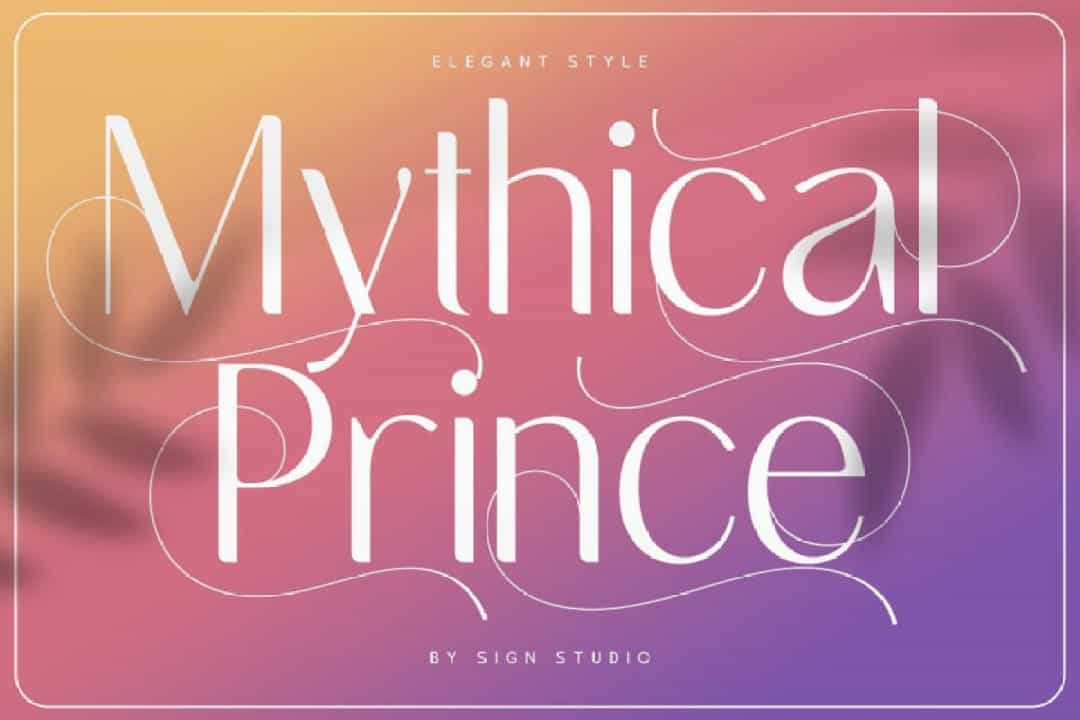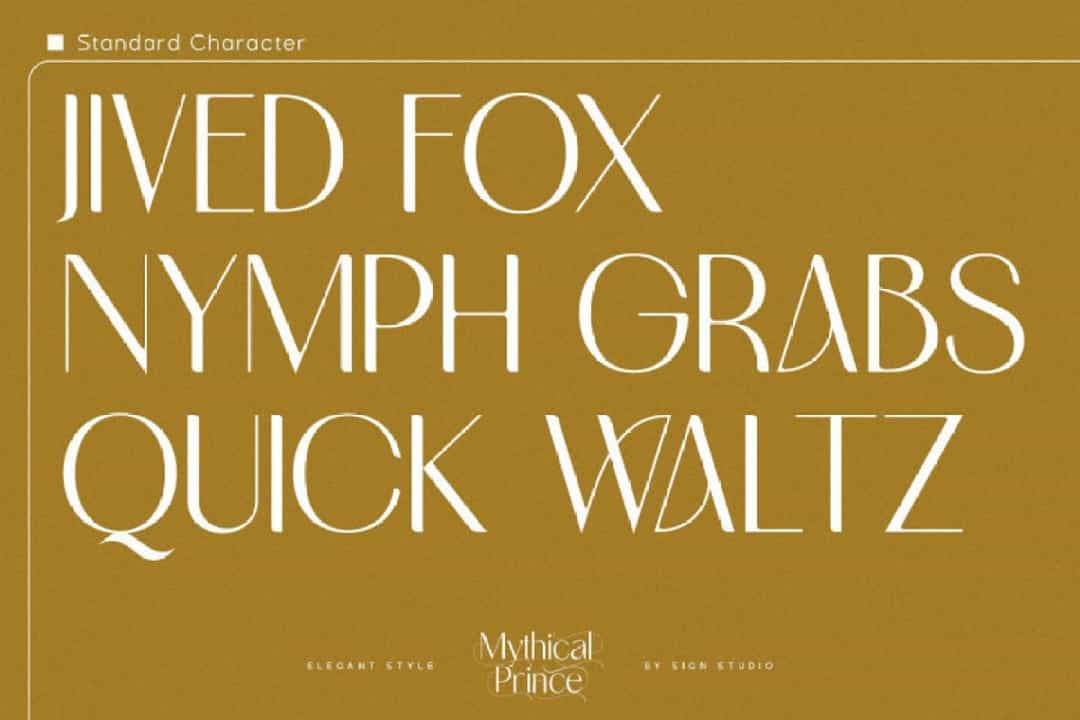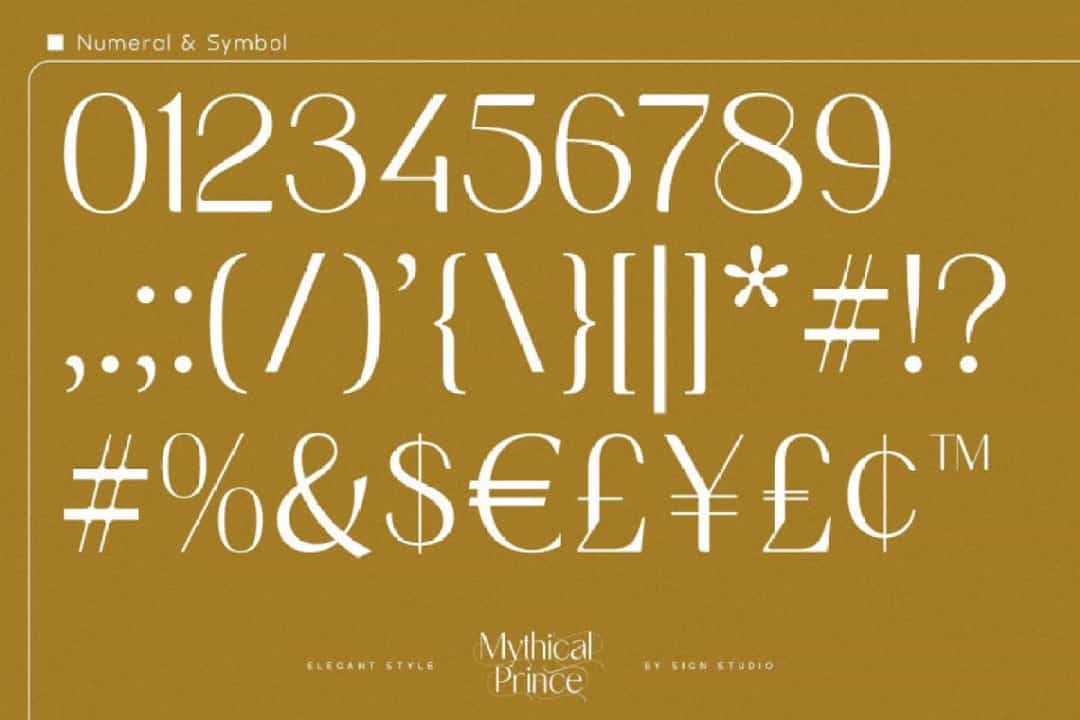
Mythical Prince is an elegant and soft sans serif font designed in romantic and beautiful styles, ideal for poster designs, wedding invites, logotypes and brand branding. PUA encoded, it allows users to use all characters and swashes quickly!